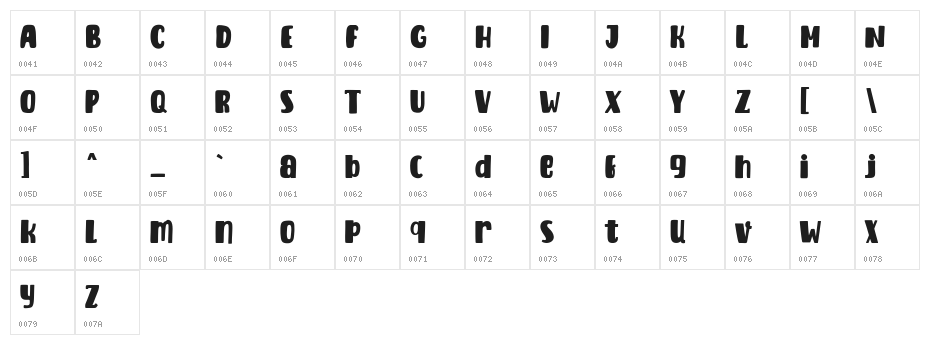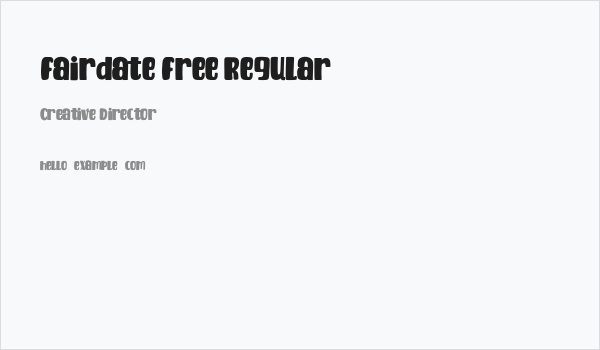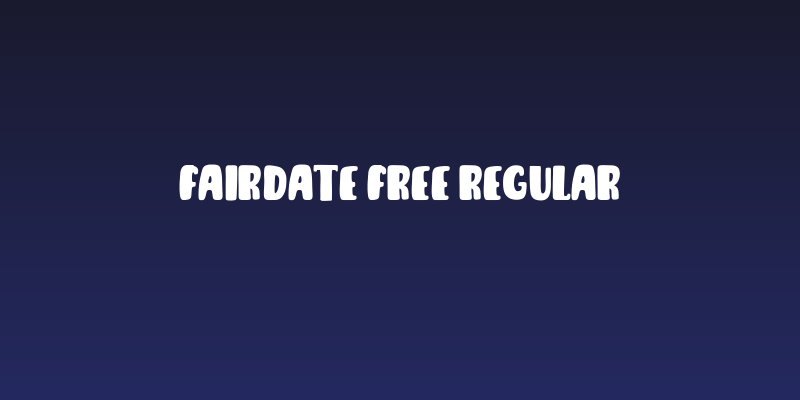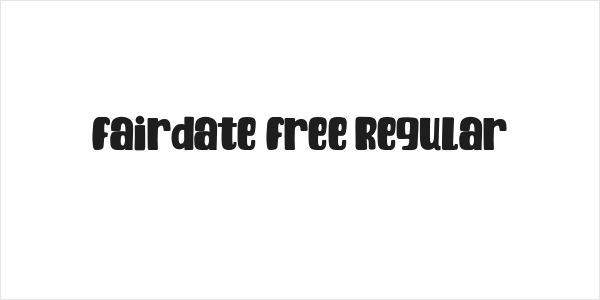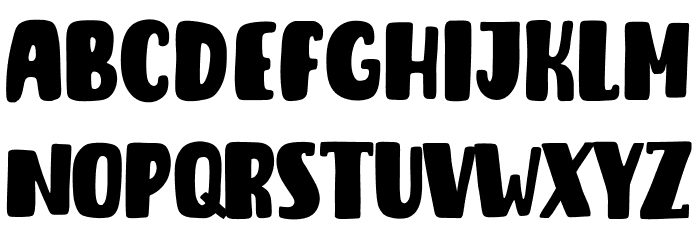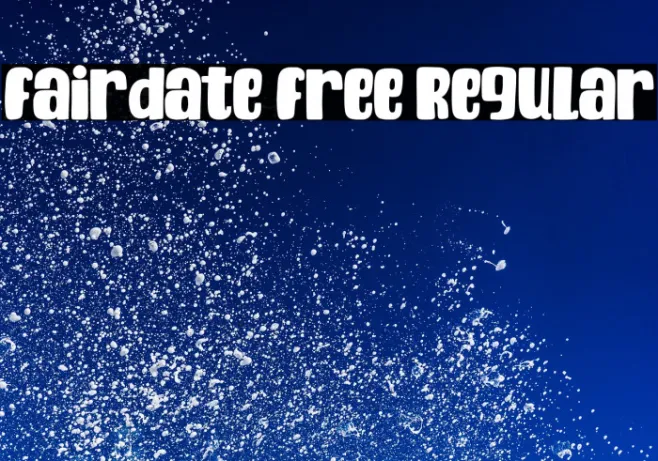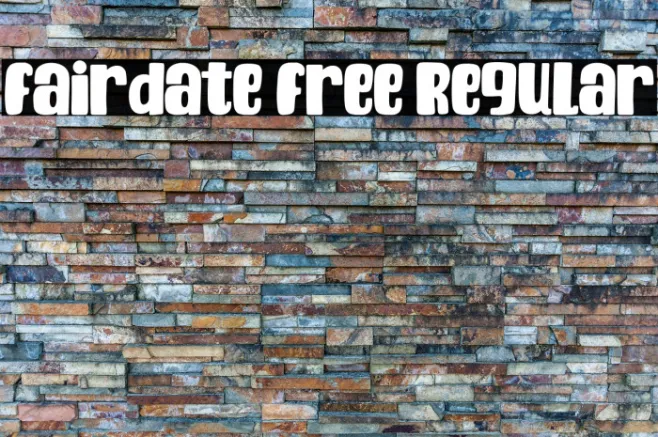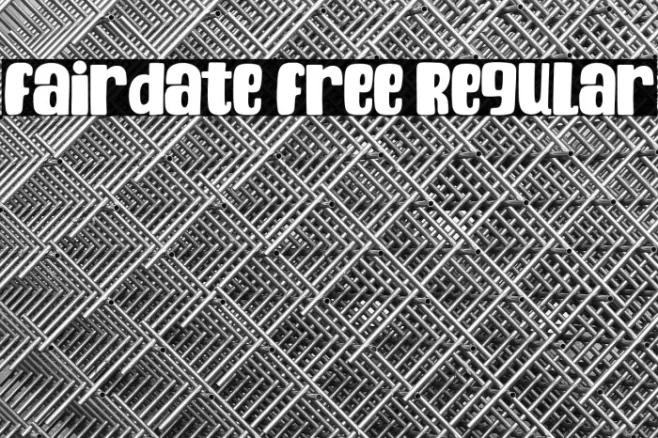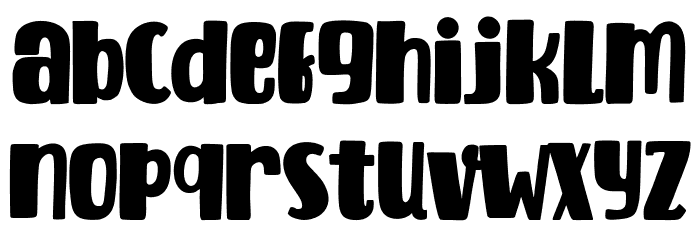
Fairdate Free Regular Font
Fairdate Free Regular Description
This font features a bold and playful design with rounded edges and a slightly irregular shape, giving it a whimsical and friendly appearance. The characters are thick and substantial, making them stand out with a strong presence. The uppercase and lowercase letters maintain a consistent style, with the lowercase letters exhibiting a slightly more condensed form. The numbers and special characters follow the same playful and bold aesthetic, ensuring a cohesive look across all text elements. This font is ideal for projects that require a fun and approachable feel, such as children's books, playful branding, or casual event invitations.
| Proposed Projects | Children's books, playful branding, casual event invitations. |